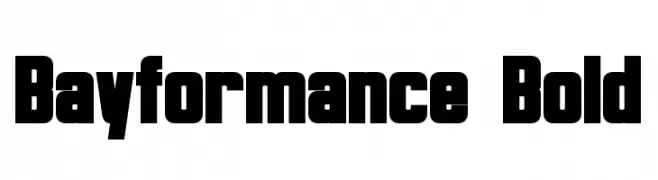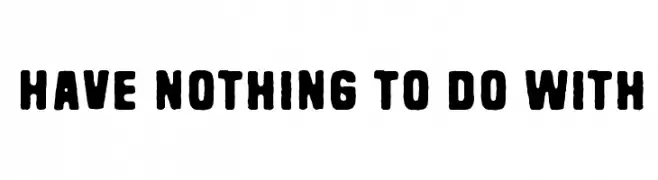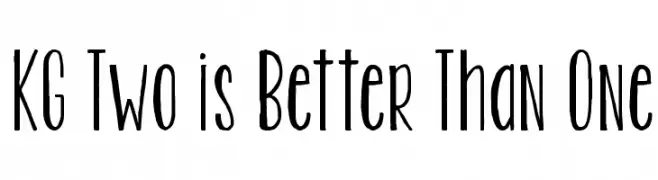
A bold, jagged font with sharp edges and a dynamic, hand-drawn style.
A bold, geometric font with strong, angular lines and a modern, industrial feel.
A bold, modern font with clean lines and strong presence.
A bold, impactful font with thick, uniform strokes and geometric shapes.
A bold, decorative font with rounded characters and a vintage flair.
A playful, mushroom-themed decorative font with bold, rounded characters.
A playful, whimsical font with tall, narrow characters and a hand-drawn feel.